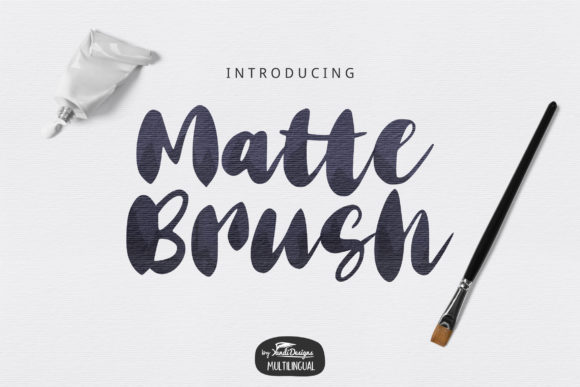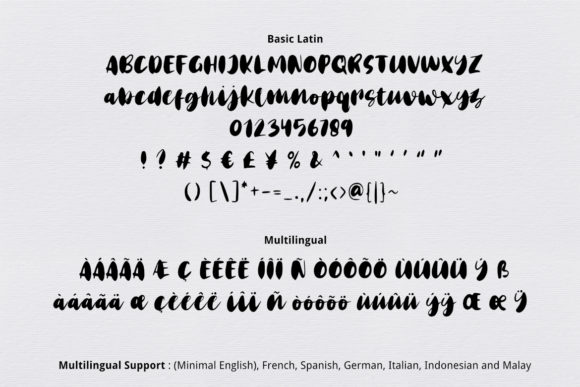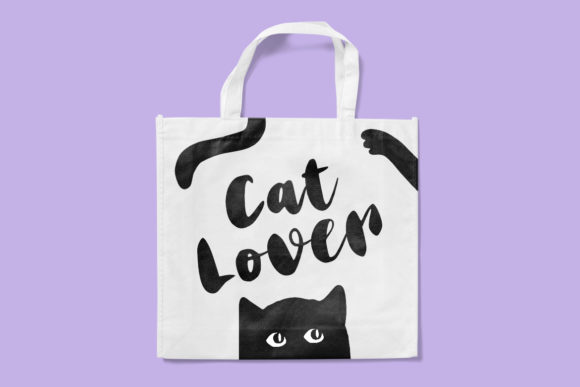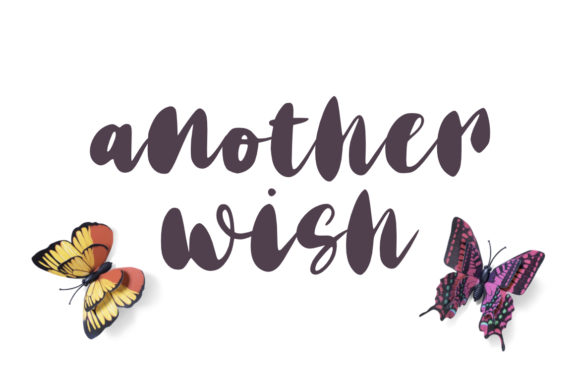
Matte Brush Font
About Matte Brush Font
Matte Brush is a gorgeously handdrawn script featuring cute letters. Get inspired by its unique charm, and turn any design project into a true standout.